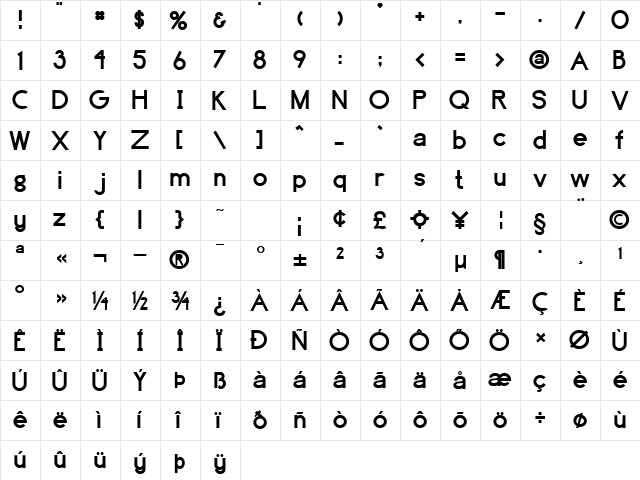
Highball Bold
Design Context for Highball Typeface
Highball offers clean, dependable letterforms without strong stylistic allegiance, making it a practical choice for designers who need flexibility. Its bold stroke weight gives it real presence on the page.
Pro Tip: Use Highball in both headline and body roles to test its range before committing to a single application.